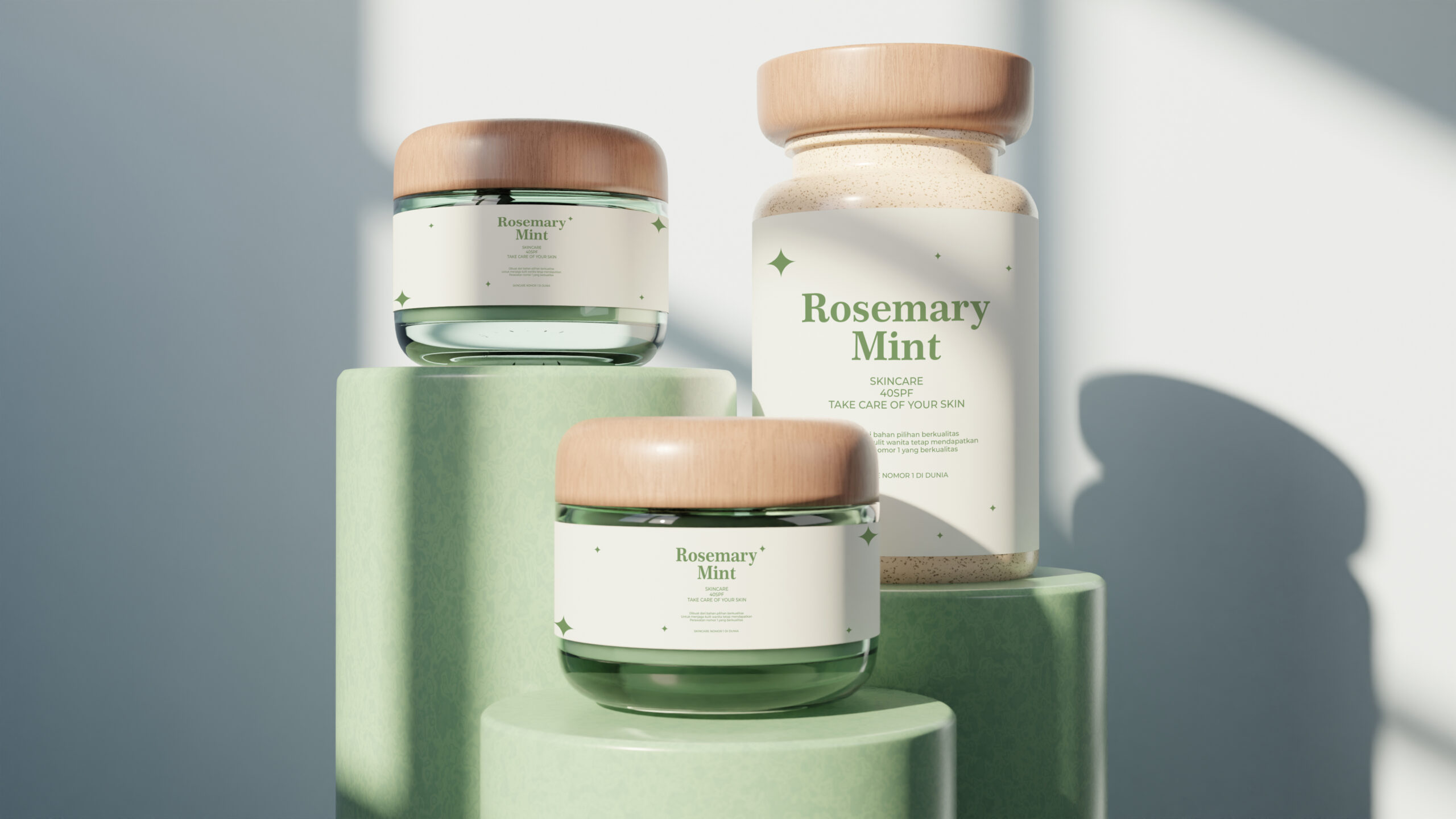
In the world of graphic design and visual identity, choosing the right typeface can determine the success of a brand. One font specifically designed for an elegant and premium look is Elarent – Elegant Display Serif. This font is crafted to deliver a professional, modern, and exclusive impression.
Elarent is a display serif font with bold yet soft characters. It is ideal for various projects such as fashion brand logos, wedding invitations, magazine headlines, cosmetic product labels, and minimalist premium-themed websites.
Elarent includes elegant ligatures and alternate characters that add uniqueness to your typography design.
It comes with full Latin character support to accommodate various international languages.
Try combining Elarent with modern sans serif fonts like Poppins or Open Sans.
Colors like beige, gray, white, and black help emphasize the elegance of your design.
Use these features to create dynamic and visually unique typography.
Elarent – Elegant Display Serif is the perfect font choice for designers seeking a luxurious and timeless look. Visit kangfont.com to explore more stunning fonts that elevate your branding and design projects.